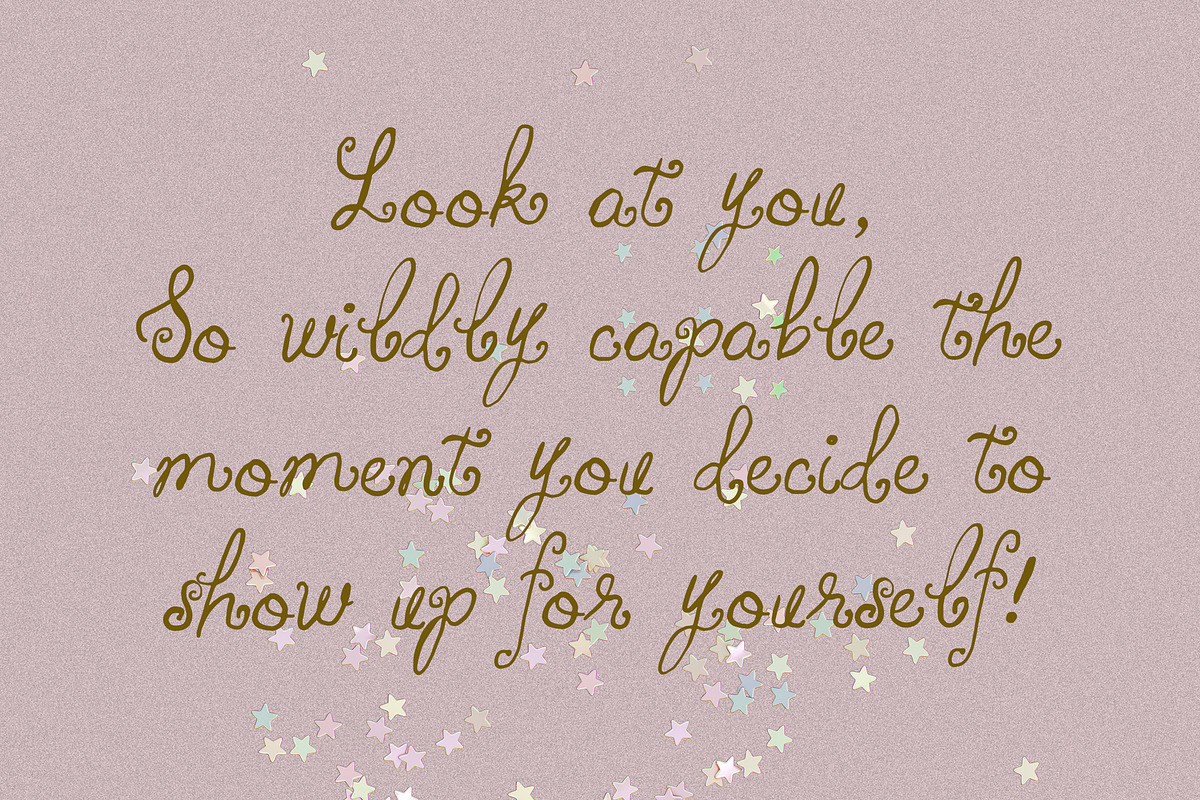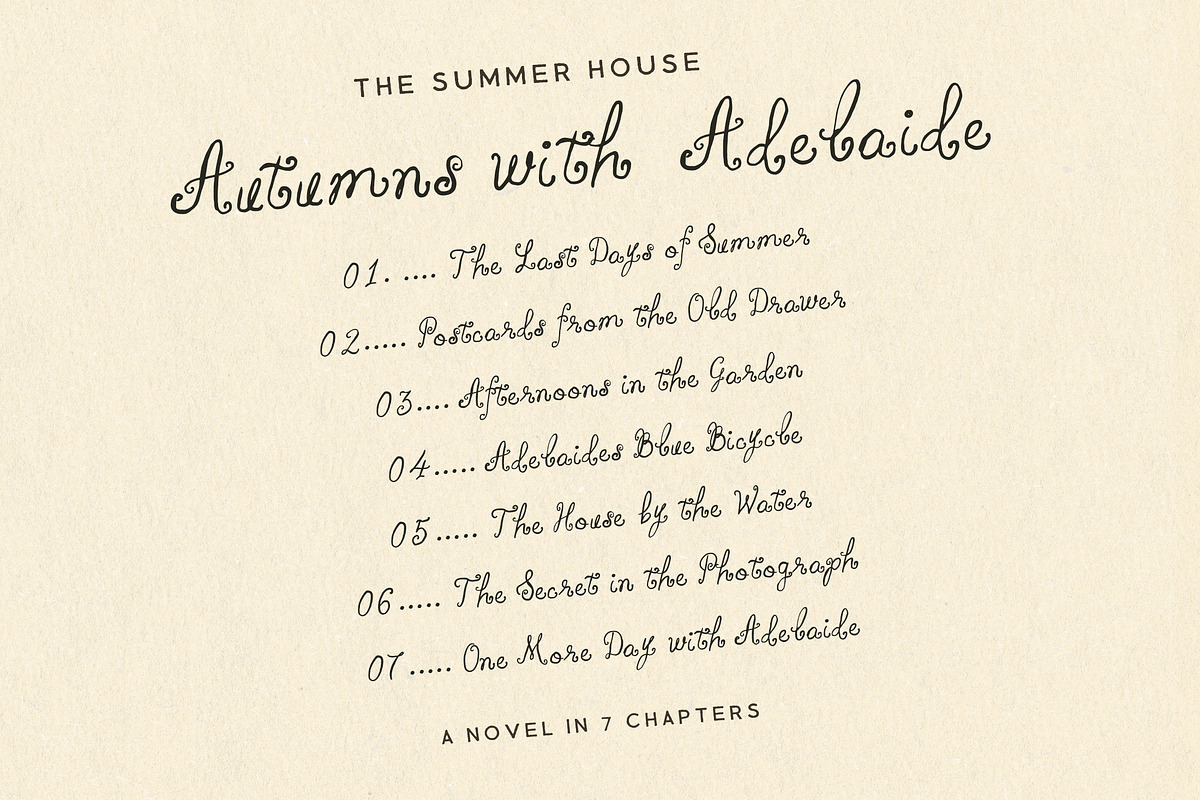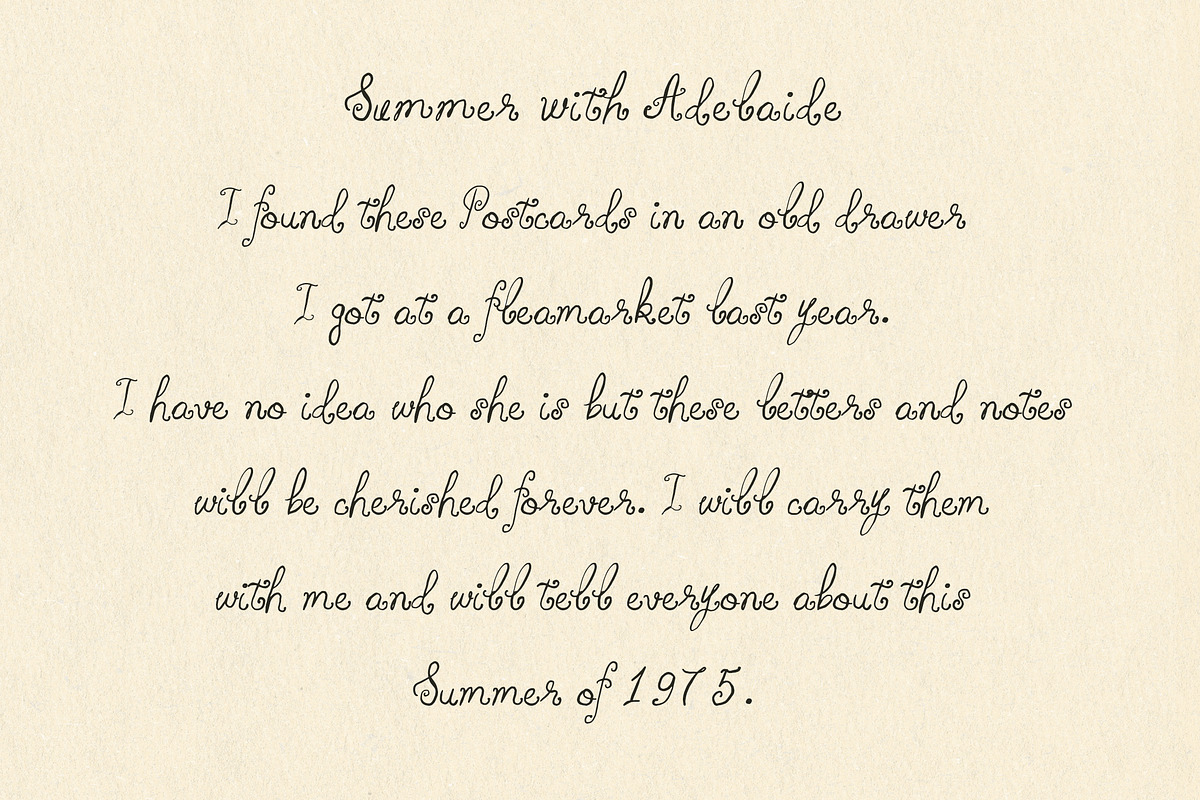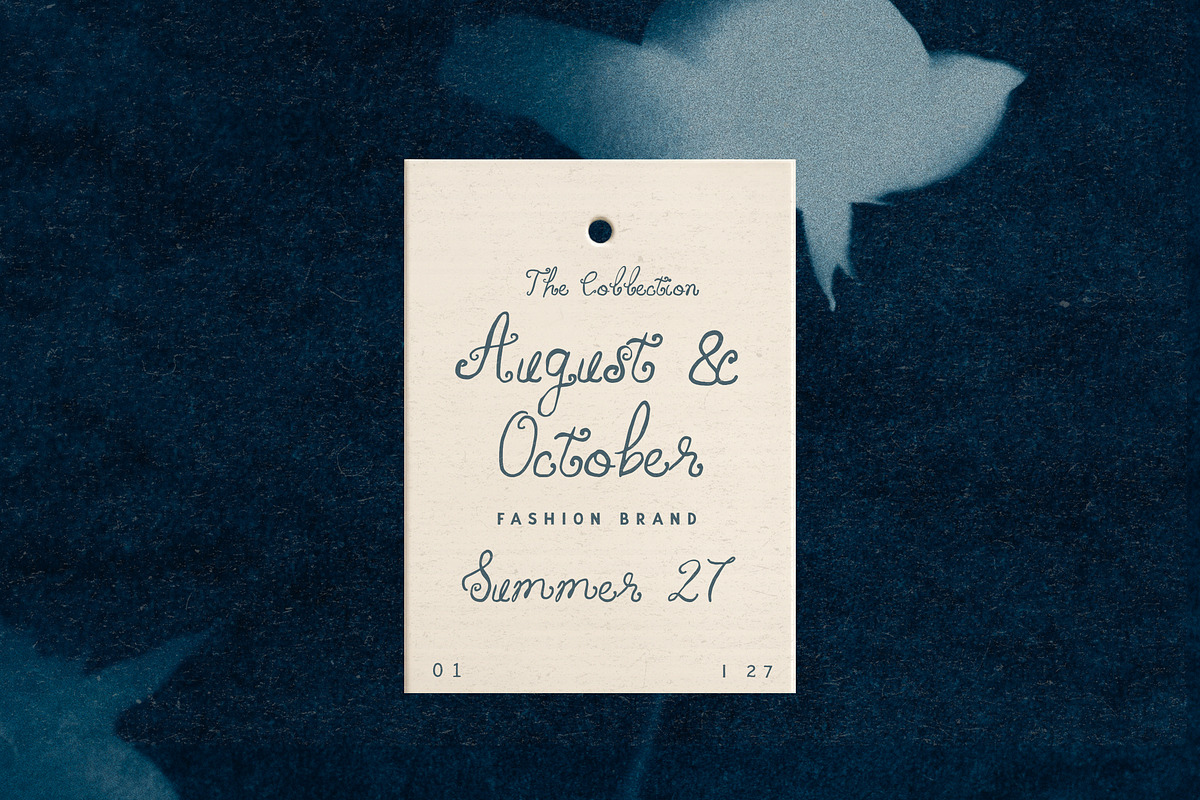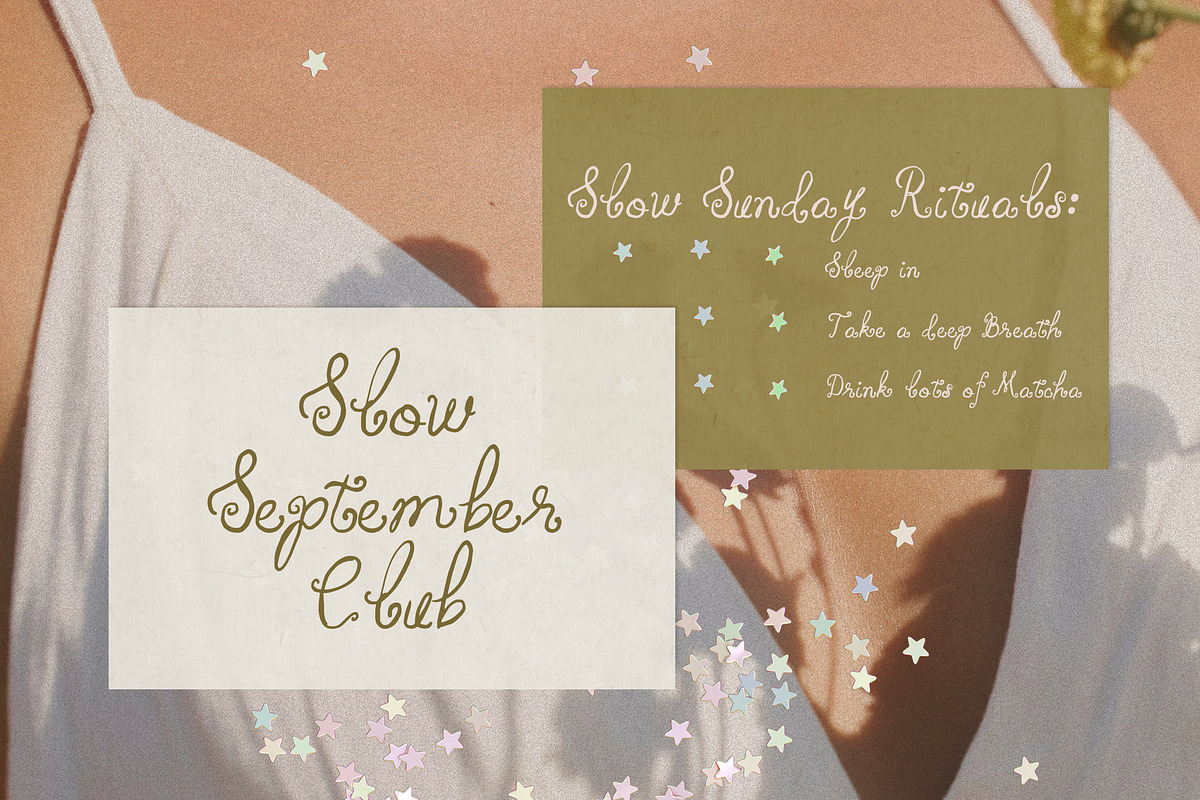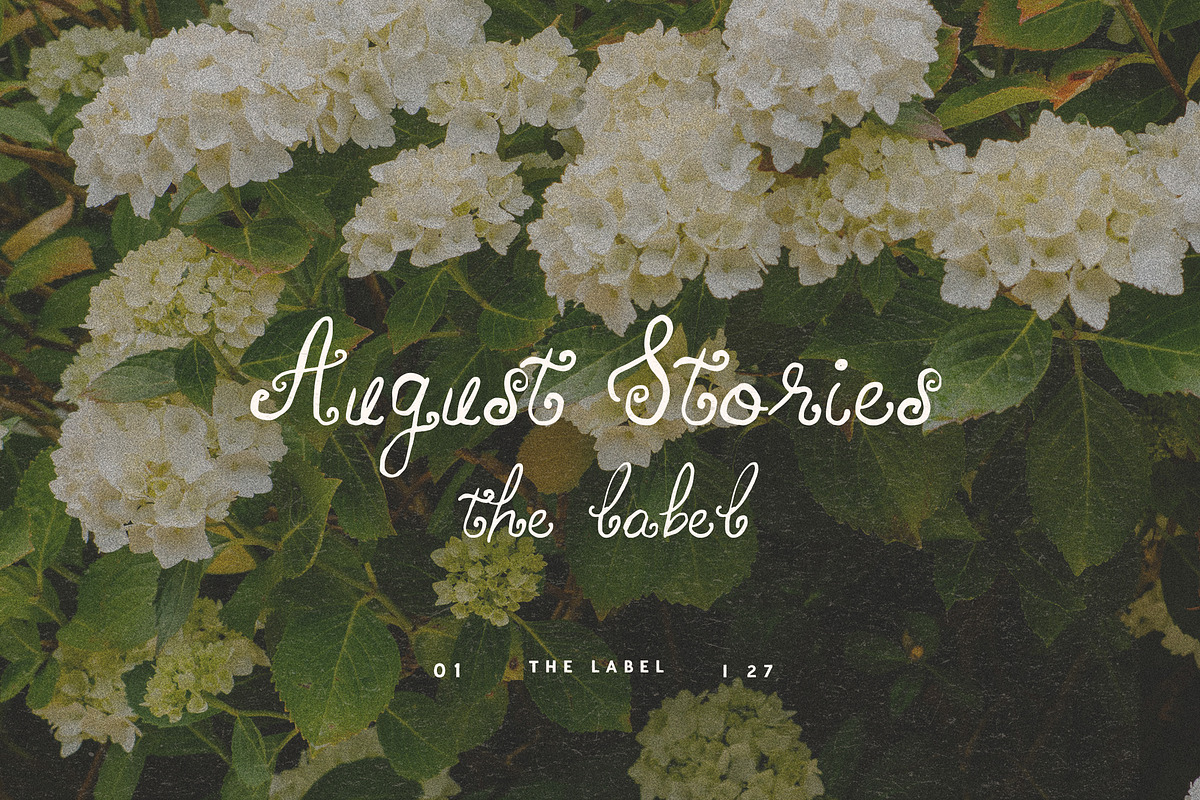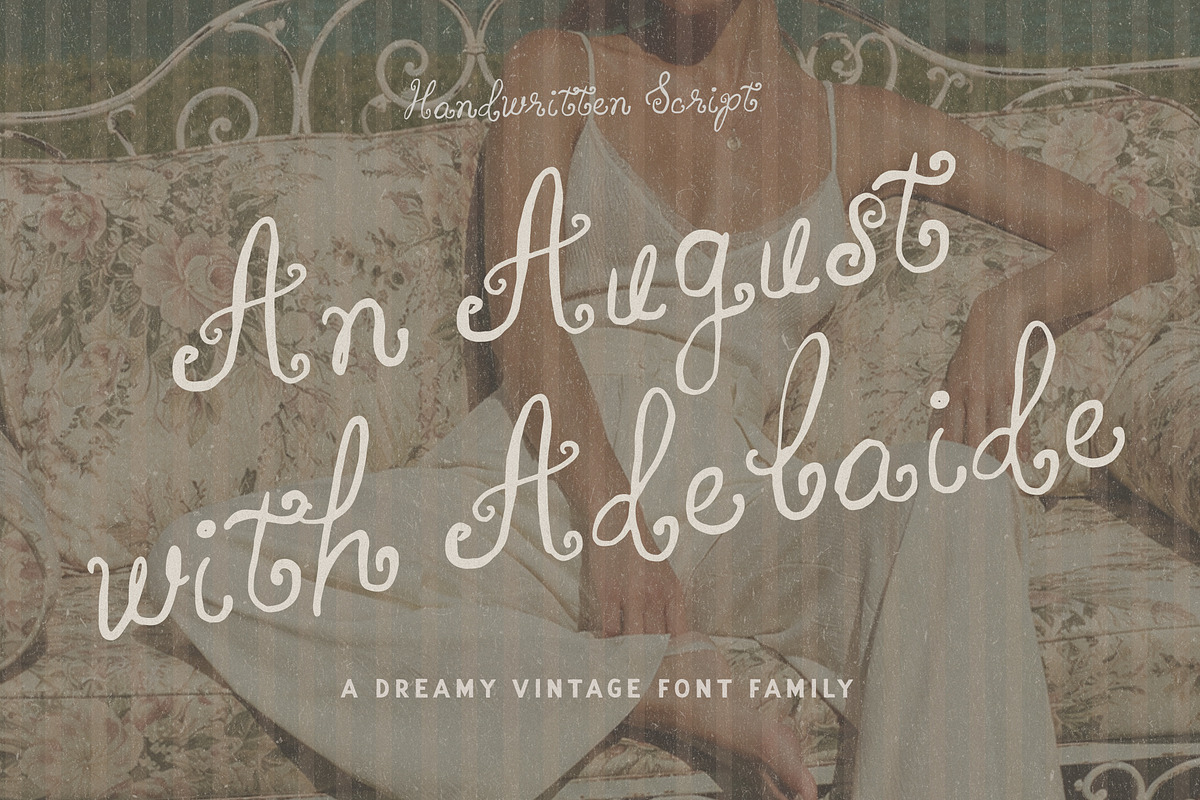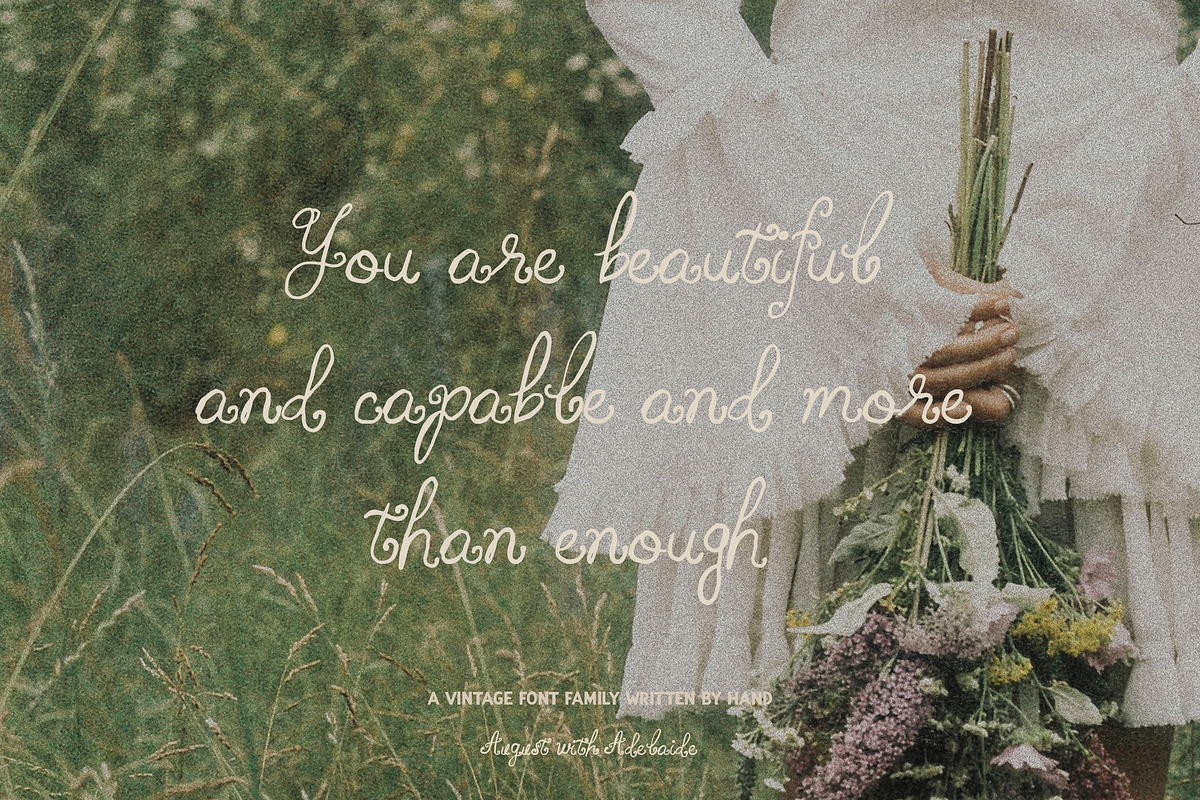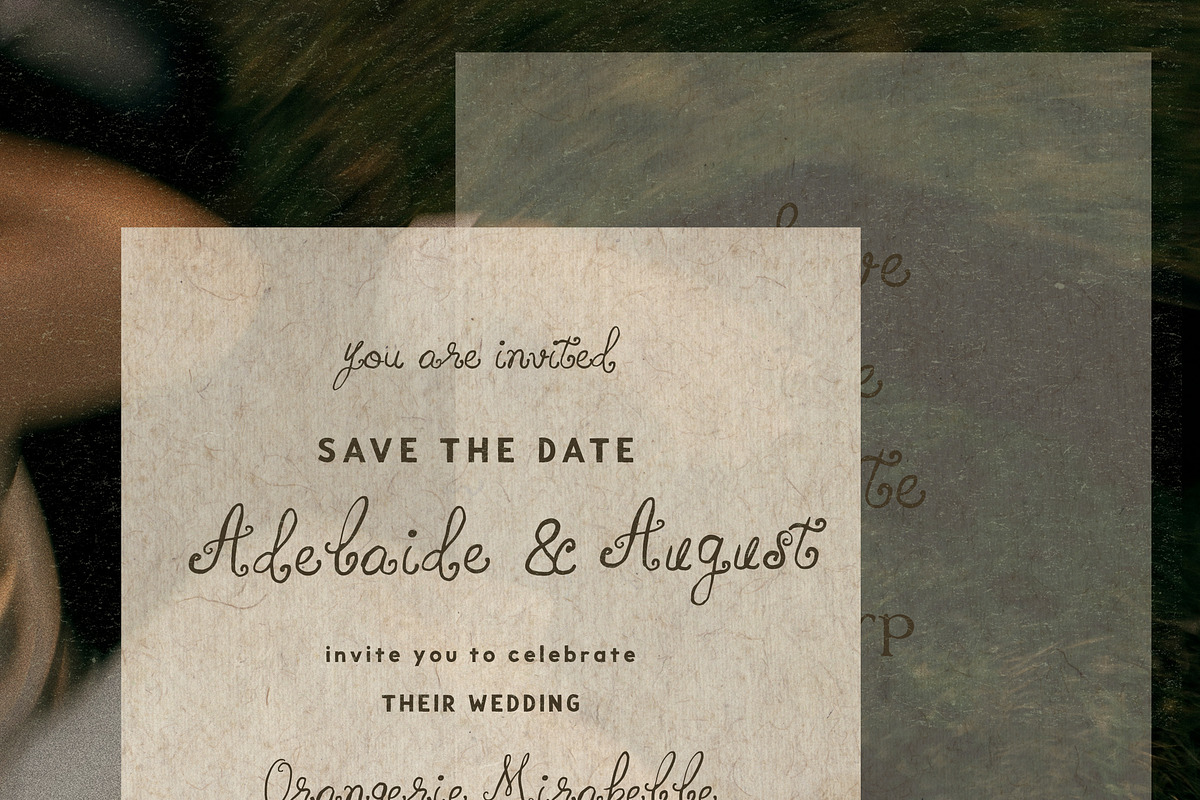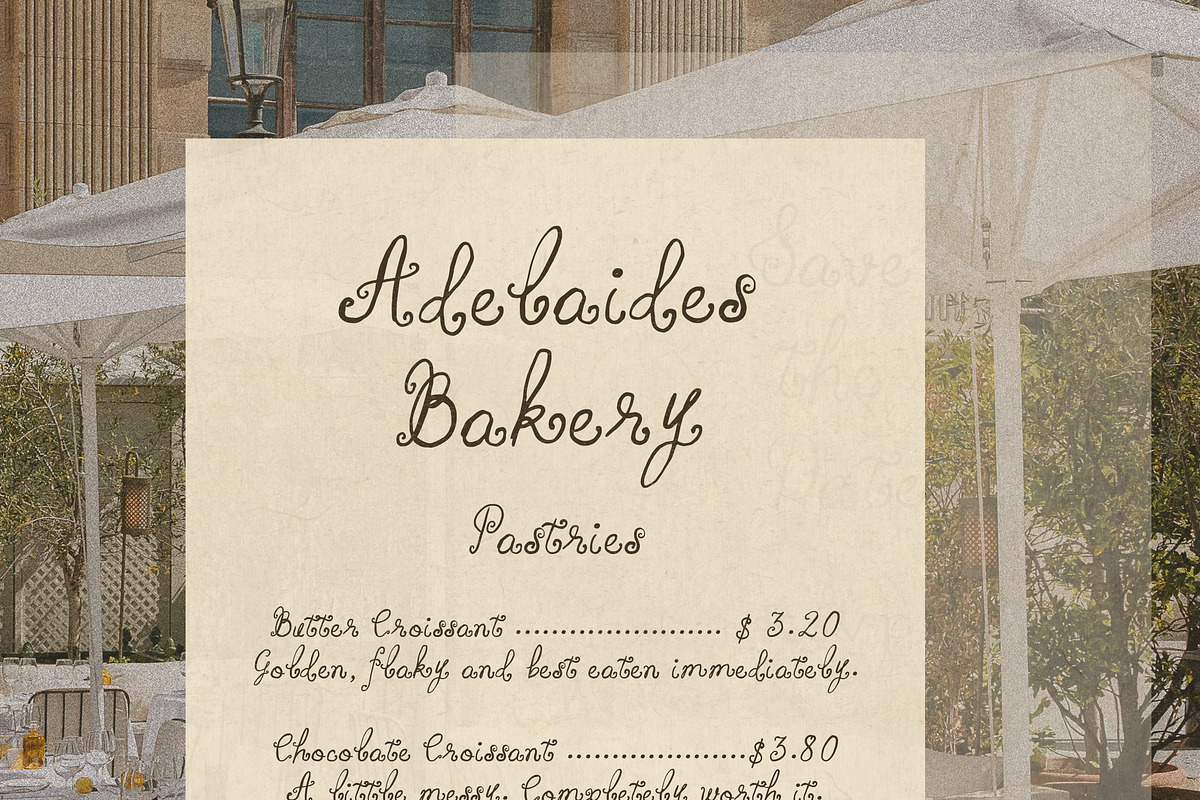
Whimsy Handwritten Vintage Script
Discover the magic nostalgia of late Summer with the first hints of autumn already in the air. This carefully handwritten script font comes in three sweet styles, each with soft curls, a hint of whimsy and the lovely imperfections of real pen and ink. Its beautifully preserved texture gives every letter a gently irregular, authentic finish, adding a bit of antique magic.
A little vintage, a little romantic and with a touch of whimsy, it brings warmth and personality to both quiet details and statement lettering.
Perfect for wedding stationery, invitations, menus, packaging, book covers, logos, branding, postcards, social media, editorial designs and handwritten quotes.